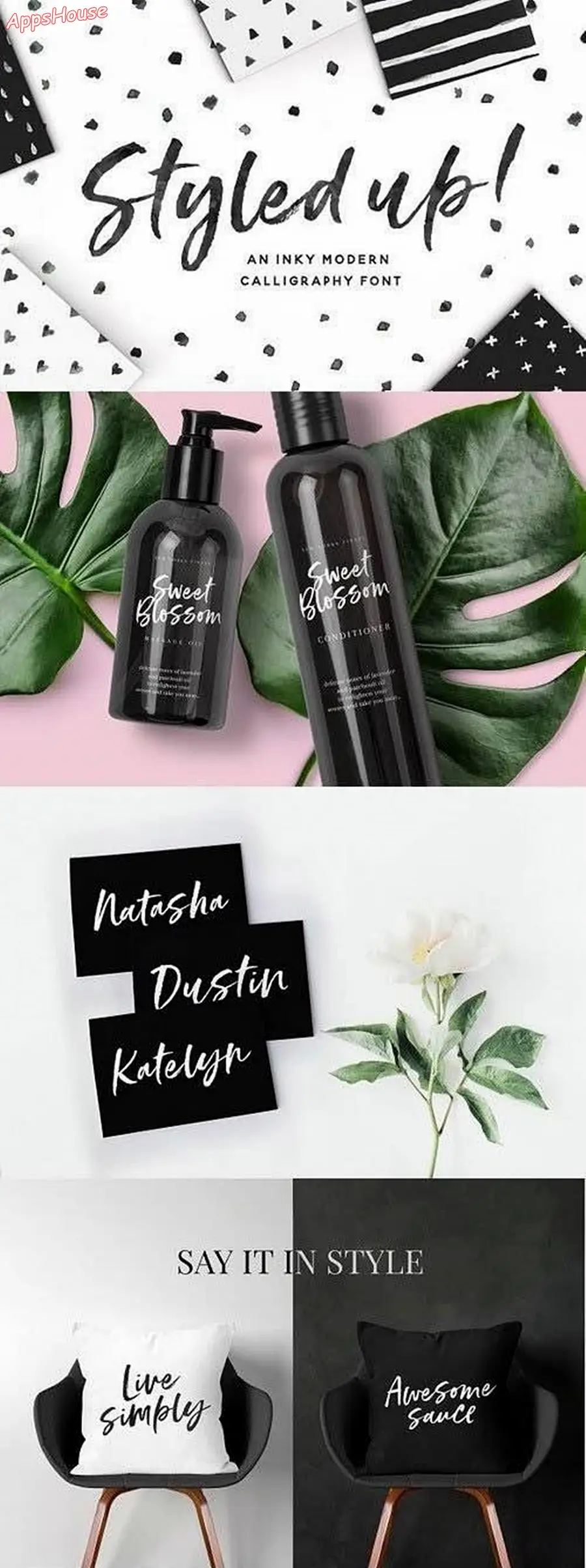
Styled Up!Brush Calligraphy Font
Introducing the Styled Up! Brush Calligraphy Font, a beautifully crafted typeface that combines elegance and modernity. This font is perfect for a variety of creative projects, including branding, invitations, and social media graphics.
• Handwritten brush style for a personal touch
• Multiple weights available for versatility
• Easy to read, making it suitable for both headlines and body text
• Ideal for logos, branding, and promotional materials
• Great for creating unique wedding invitations and greeting cards
• Use in digital and print projects for a stylish look